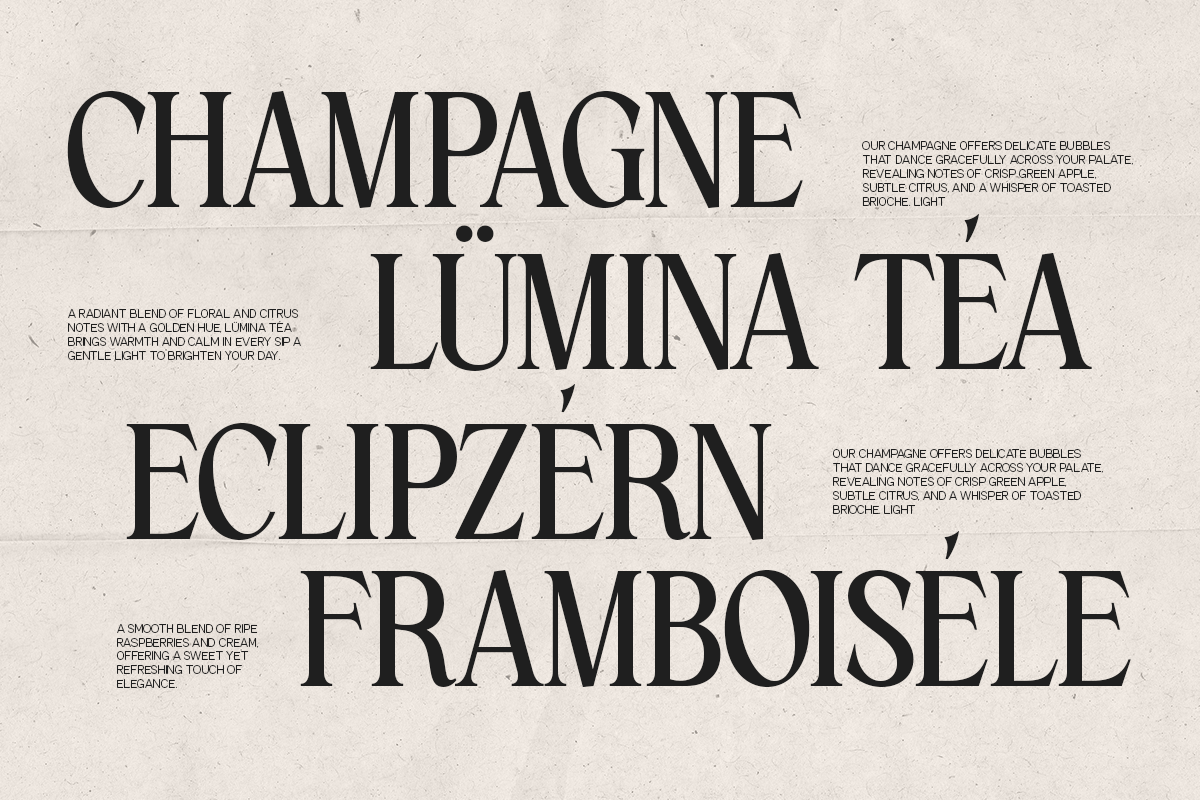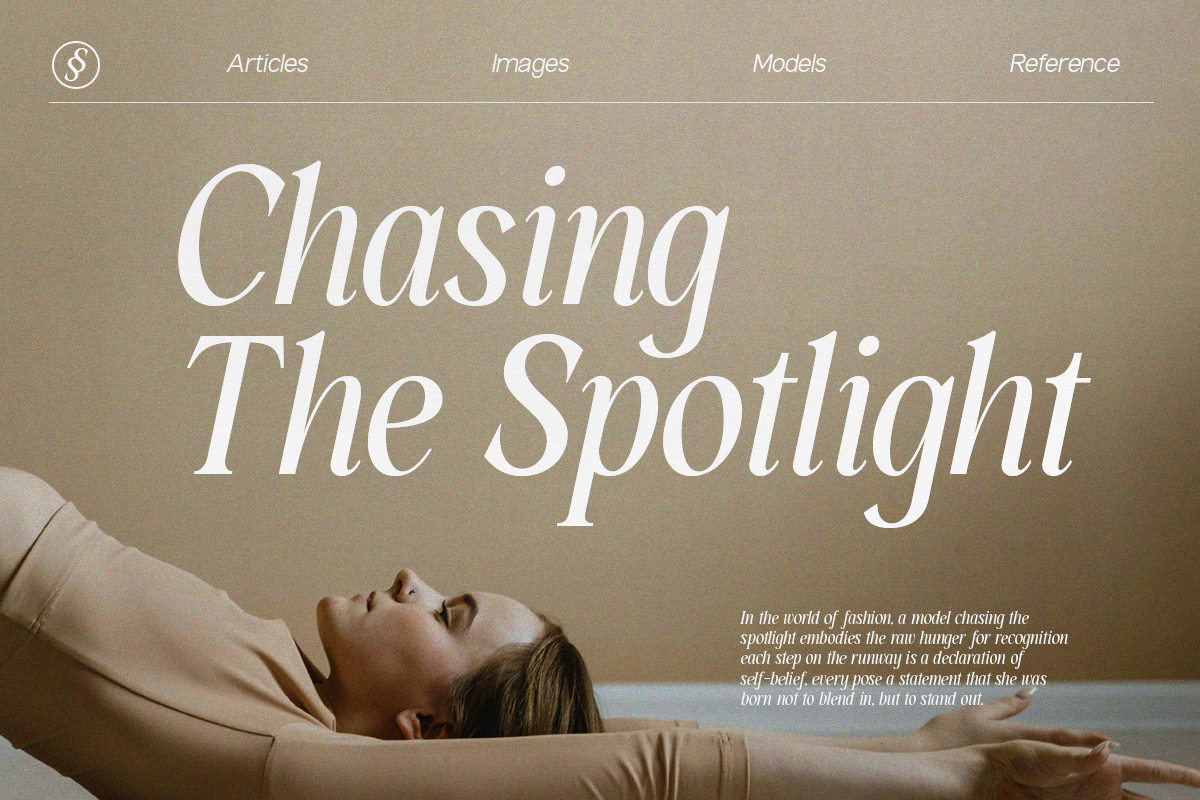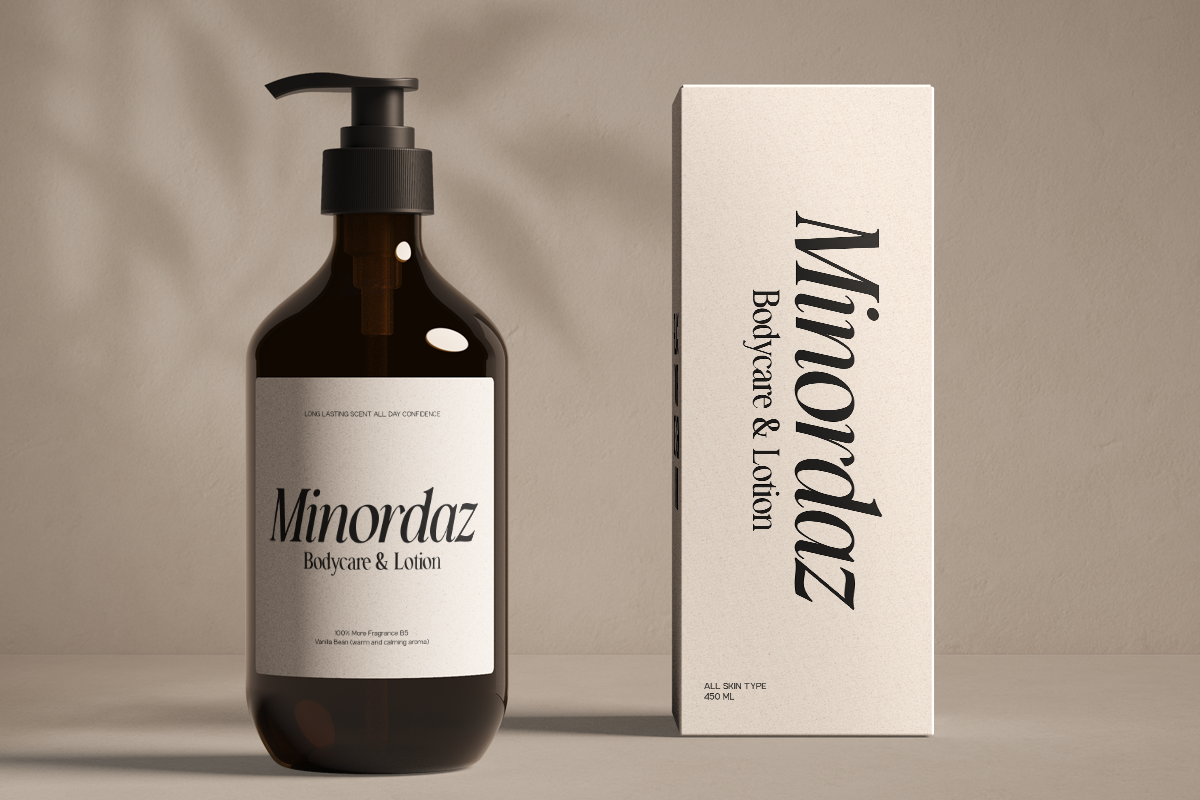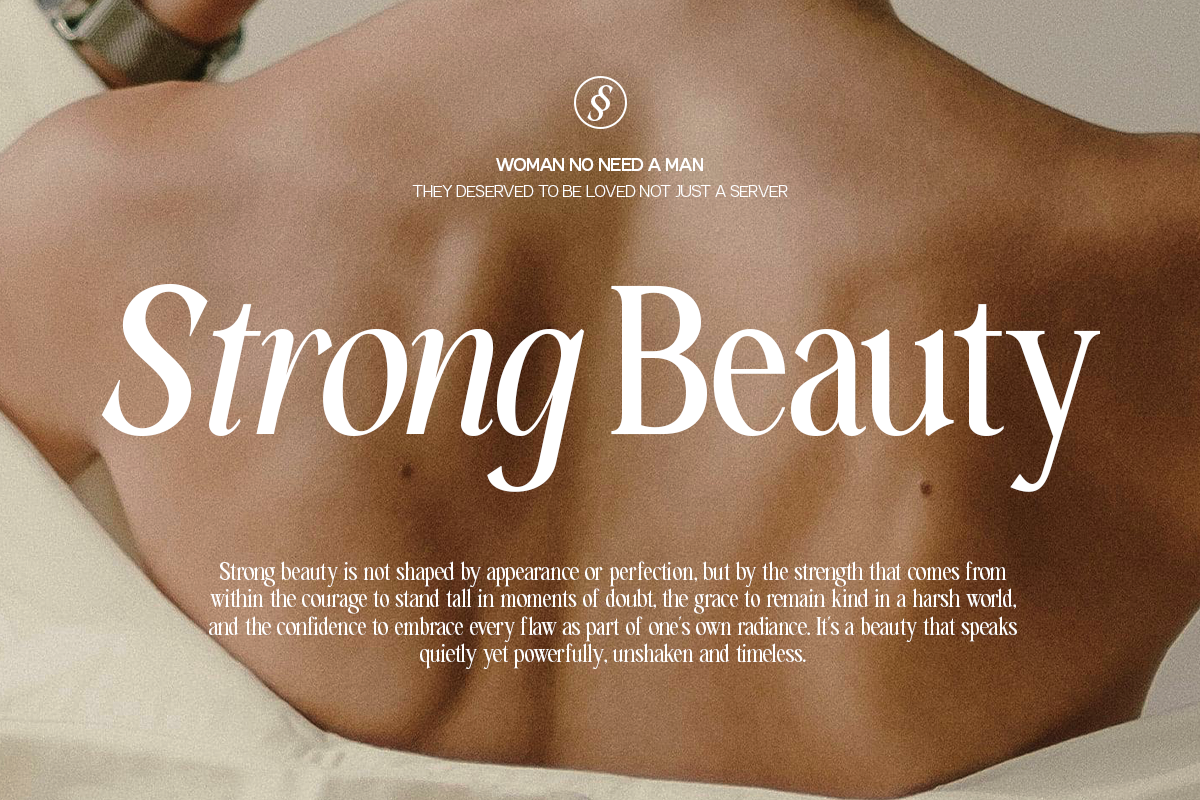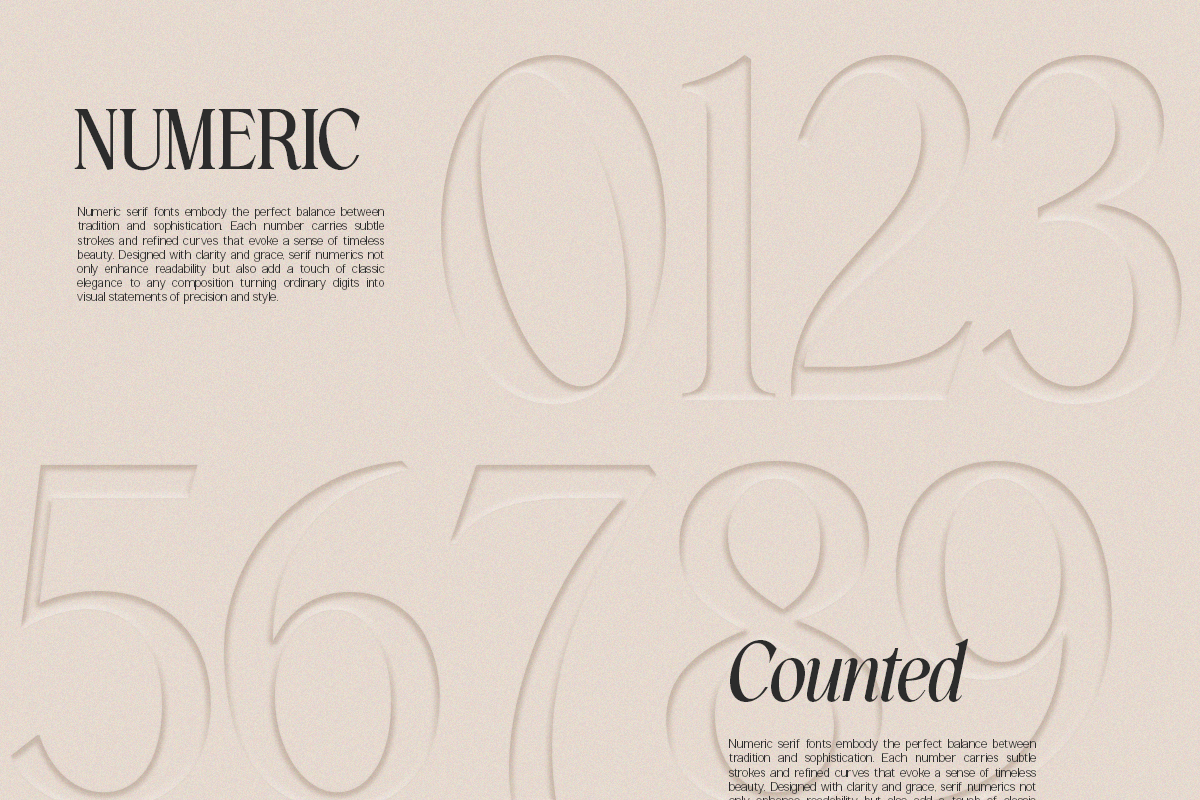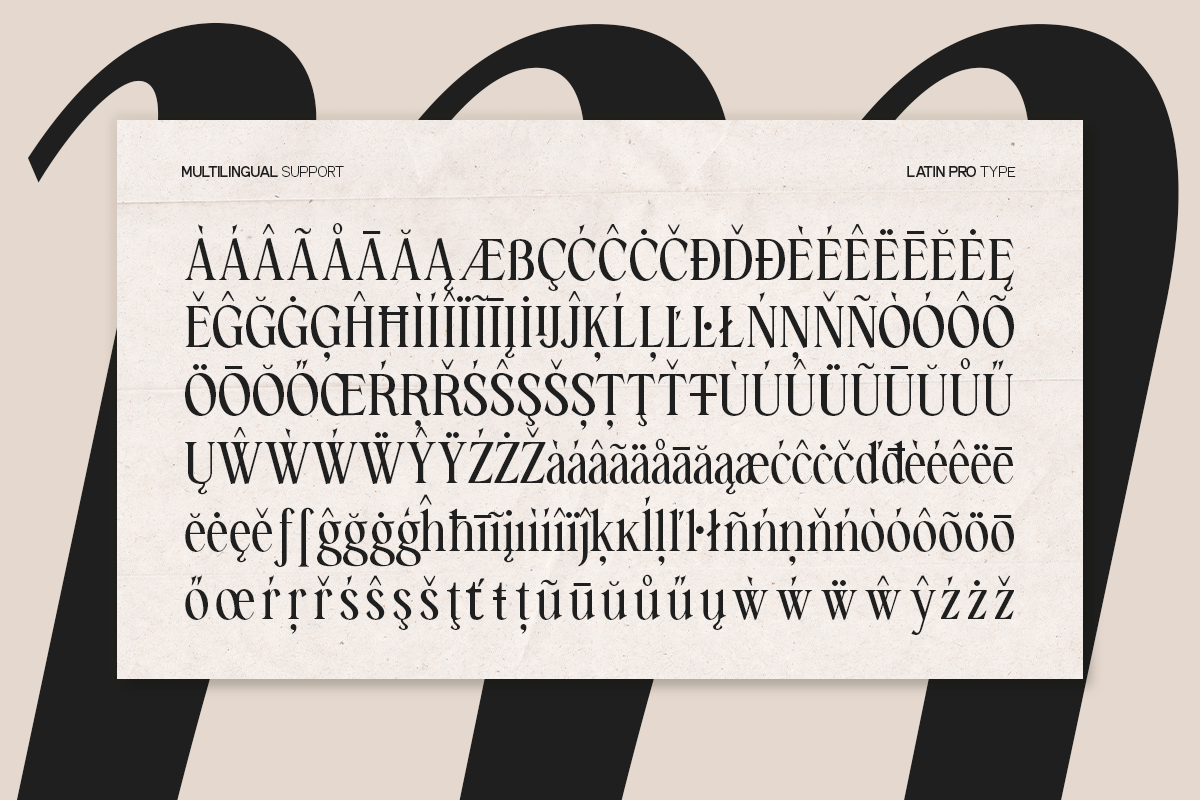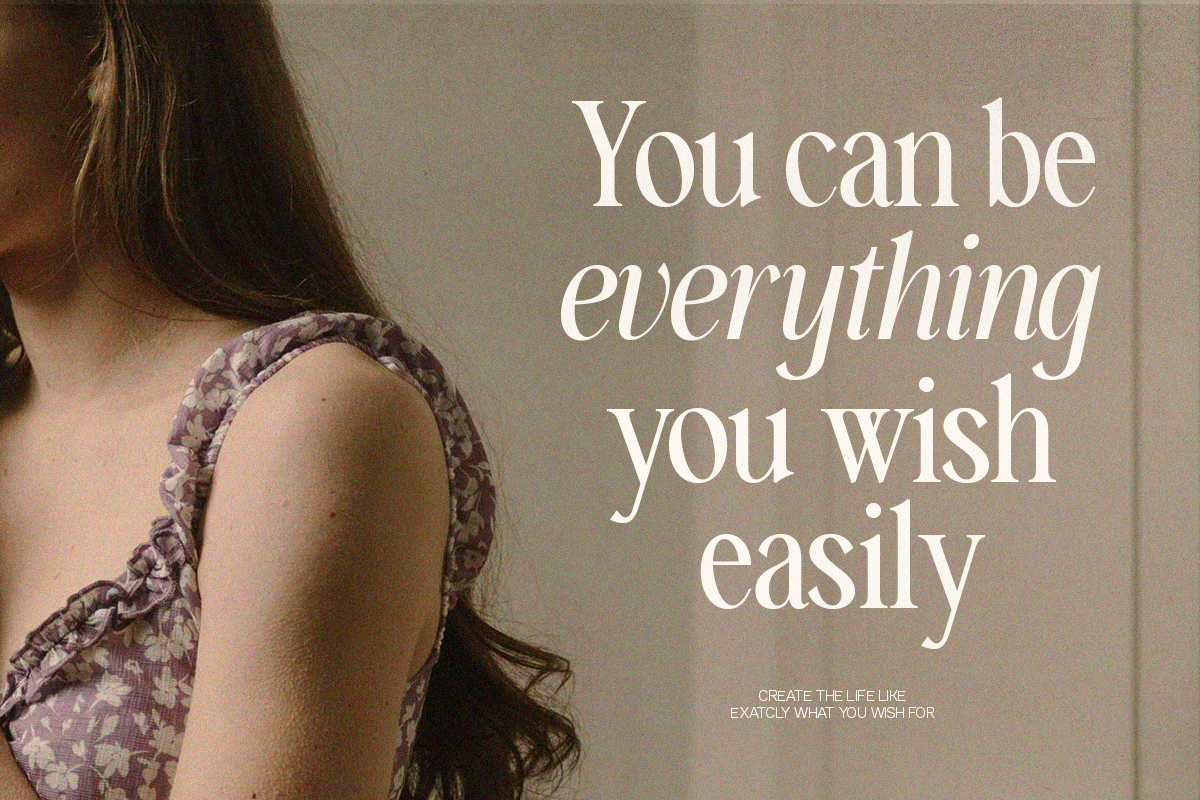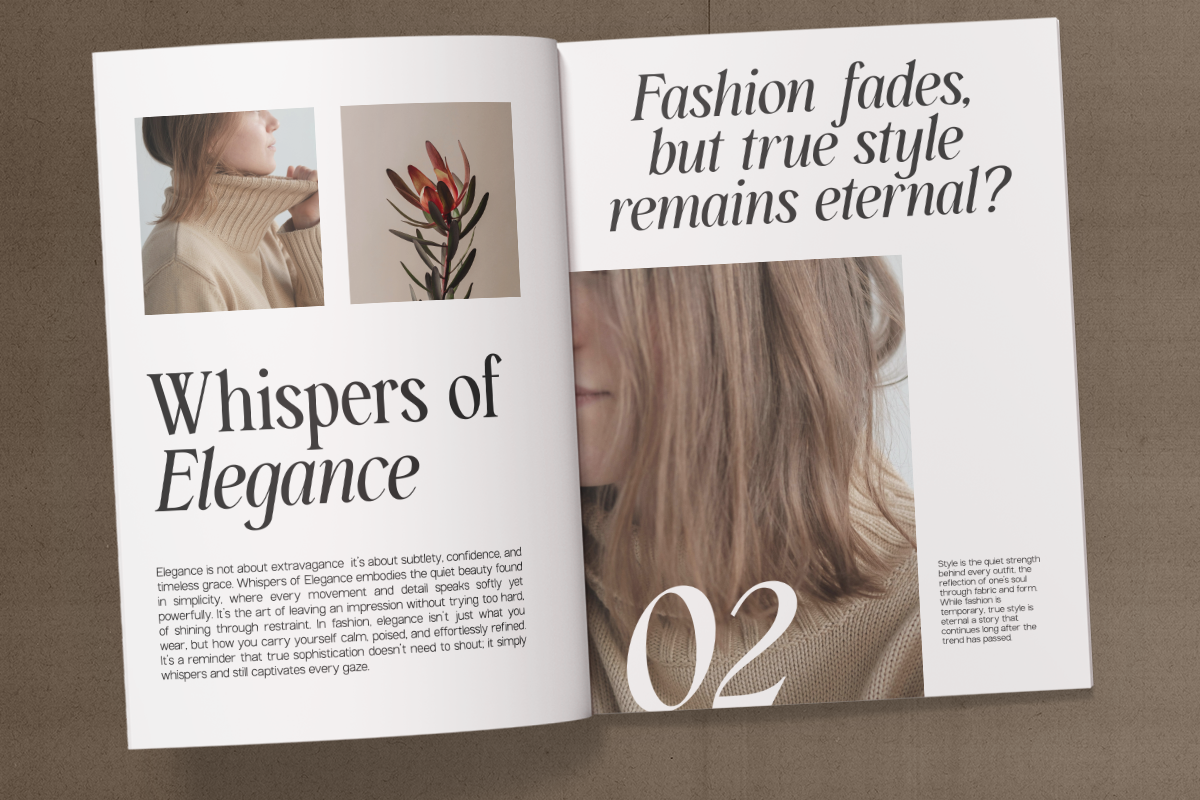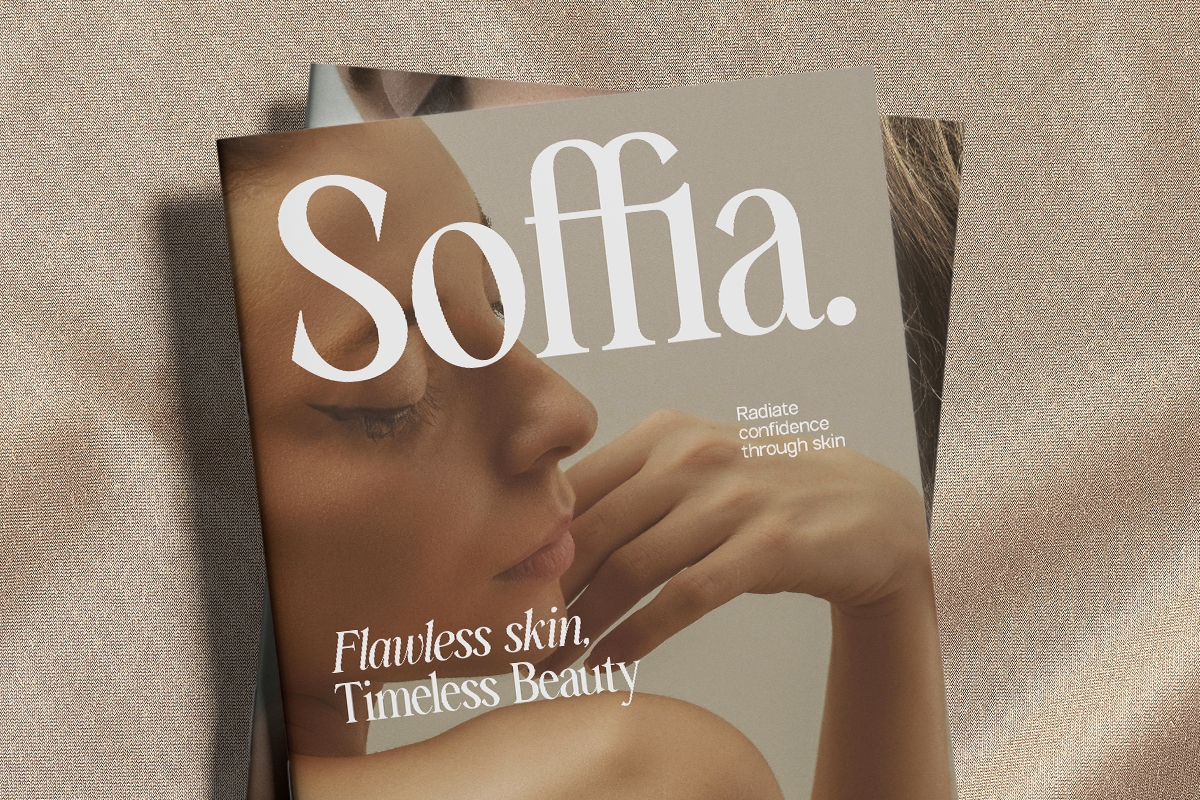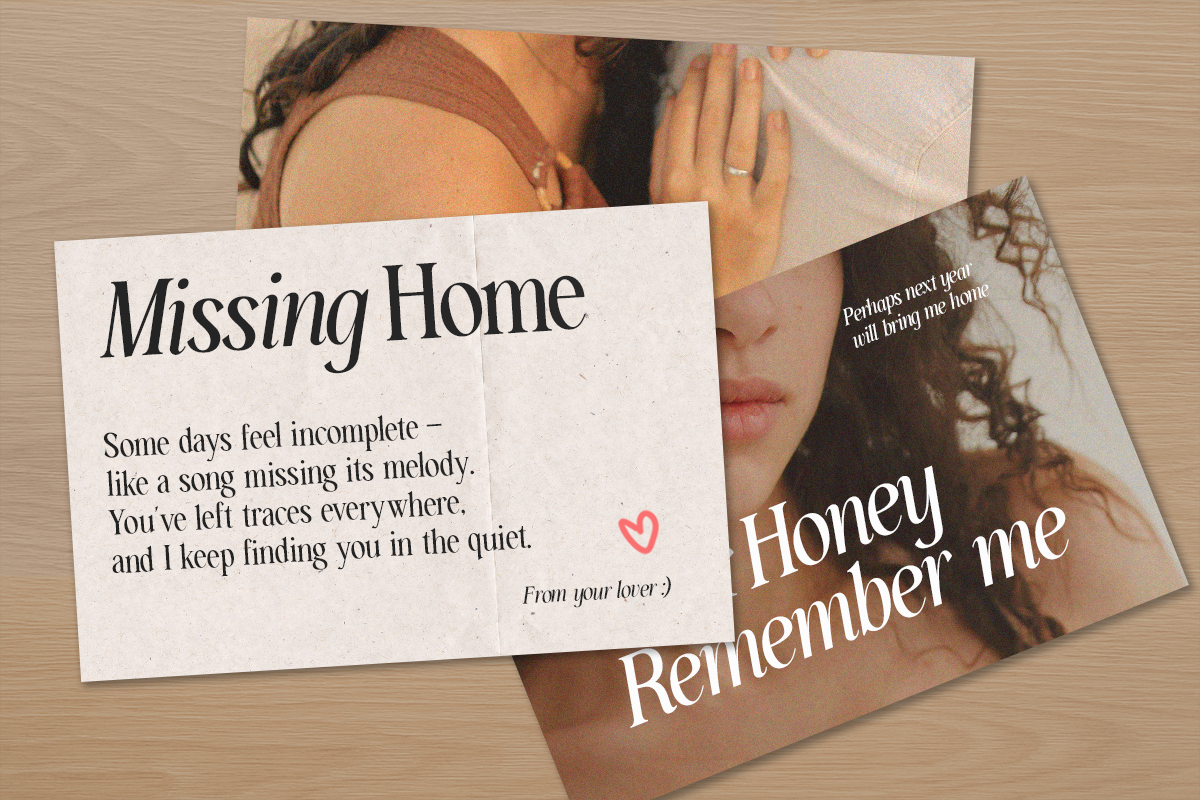
GC Amelie Promised – Italic Serif
GC Amelie Promised is a refined italic serif typeface crafted to express grace, beauty, and timeless sophistication. With elegant curves and high contrast strokes, it brings a romantic yet modern character to any visual composition. Designed to embody femininity and confidence, this typeface is perfect for editorial designs, fashion branding, beauty packaging, and elegant logotypes.
Balanced letterforms and true italic detailing make GC Amelie Promised a distinctive choice that adds depth and allure to your typography. Whether used for magazine titles, perfume branding, or minimalist posters, it delivers an elevated aesthetic that feels both classic and contemporary.
- True Italic Construction
- Multilingual Support (170+ Languages)
Bring elegance, emotion, and modern sophistication to your design with GC Amelie Promised.